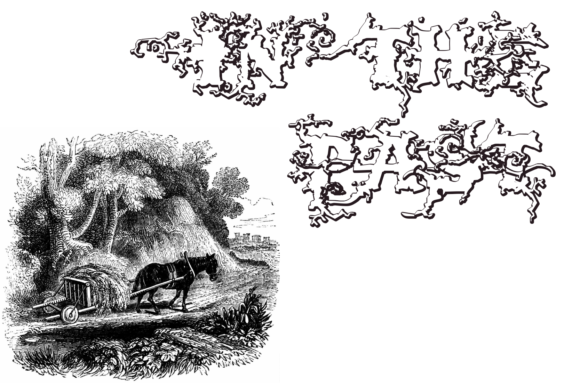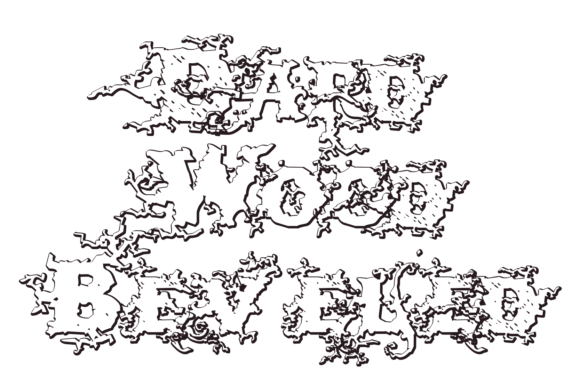
Unleashing the Eerie Charm of Dark Wood Beveled Font
The Dark Wood Beveled font is a unique and captivating typography that evokes a sense of eeriness and foreboding. Its distinct design, crafted from the branches of a tree, gives it a scary yet fascinating look that can add a touch of mystery to any design project. In this article, we’ll delve into the world of Dark Wood Beveled font, exploring its characteristics, uses, and the creative possibilities it offers for designers and crafters.
The Origins of Dark Wood Beveled Font
The Dark Wood Beveled font is inspired by the natural world, specifically the twisted and gnarled branches of trees. The font’s creator aimed to capture the essence of the forest, transforming the organic shapes of tree branches into a functional and visually striking typeface. The result is a font that exudes a sense of ruggedness and wildness, perfect for designs that require a touch of the unknown.
Characteristics of Dark Wood Beveled Font
The Dark Wood Beveled font boasts several distinctive features that set it apart from other typography:
- Branch-like letters: Each letter is carefully crafted to resemble a twisted tree branch, complete with knots and texture.
- Beveled edges: The font’s edges are beveled, giving it a worn and weathered appearance that adds to its eerie charm.
- Dark and moody: The font’s color palette is predominantly dark, with shades of brown, gray, and black, which contributes to its ominous and foreboding atmosphere.
Uses of Dark Wood Beveled Font
The Dark Wood Beveled font is an excellent choice for designs that require a sense of mystery, horror, or the supernatural. Some potential uses include:
- Halloween-themed designs: The font’s spooky appearance makes it perfect for Halloween-themed designs, such as invitations, posters, and decorations.
- Horror movie titles: The font’s eerie charm would be a great fit for horror movie titles, adding to the sense of tension and foreboding.
- Fantasy and adventure designs: The font’s natural, organic feel makes it suitable for fantasy and adventure-themed designs, such as book covers, logos, and signage.
When working with the Dark Wood Beveled font, consider the following tips:
- Experiment with textures and colors: To enhance the font’s natural, organic feel, try combining it with textures and colors that evoke the natural world.
- Balance with lighter elements: To avoid overwhelming the design, balance the font’s dark, bold appearance with lighter elements, such as white space or contrasting colors.
- Play with arrangements: Don’t be afraid to experiment with different arrangements of the font, such as overlapping letters or creative placement.
The Dark Wood Beveled font is a unique and captivating typography that can add a touch of mystery and eeriness to any design project. Its distinct design, crafted from the branches of a tree, gives it a scary yet fascinating look that is sure to capture the attention of designers and crafters. By understanding the font’s characteristics, uses, and creative possibilities, designers can unlock the full potential of the Dark Wood Beveled font and create designs that are both haunting and beautiful.